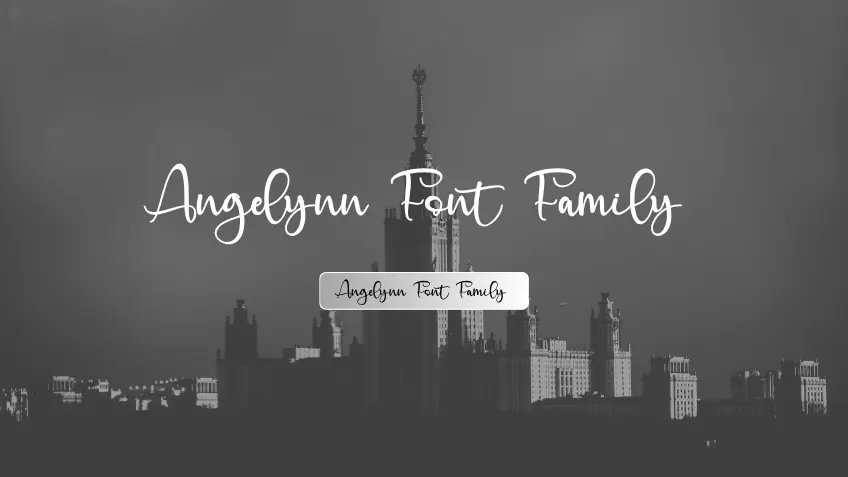
The font Angelynn Regular, designed by Thomas Aradea, falls under the Handwritten, Script category & Angelynn font family. Its smooth, flowing letterforms make it a versatile choice for projects that require both elegance and readability. Angelynn is particularly well-suited for Branding, Wedding Invitations, Social Media, Event Posters, Blog headers, Logos, Display, Banners and Christmas. With its balance of simplicity and decorative appeal, this font brings a polished touch to both personal and professional designs.